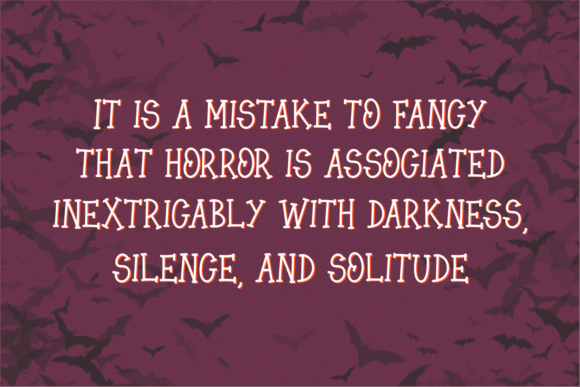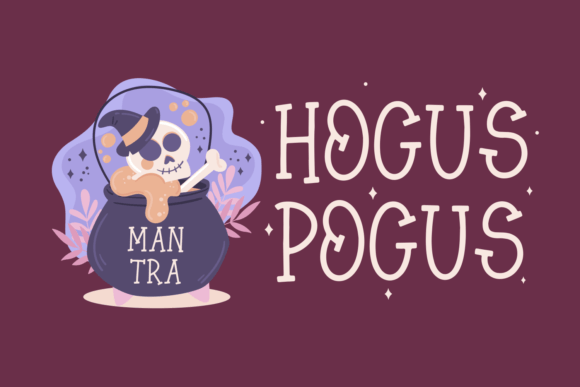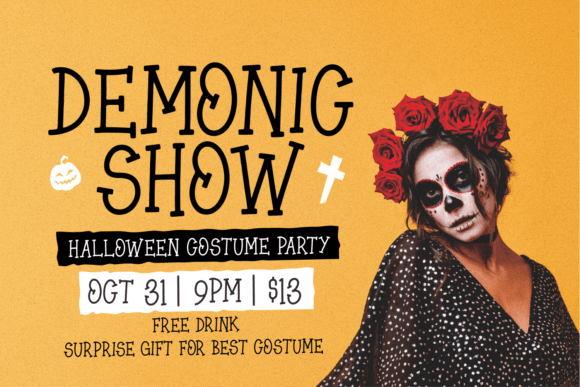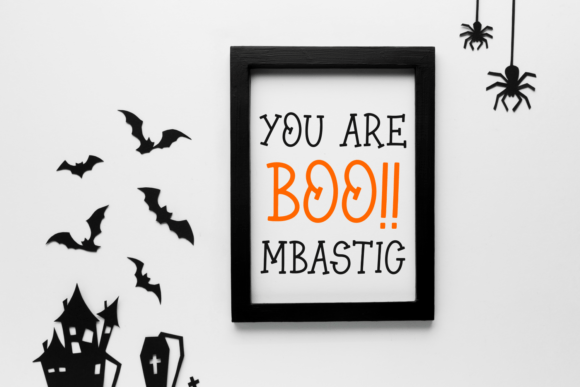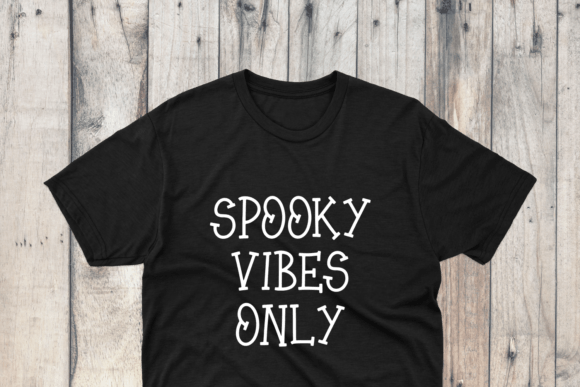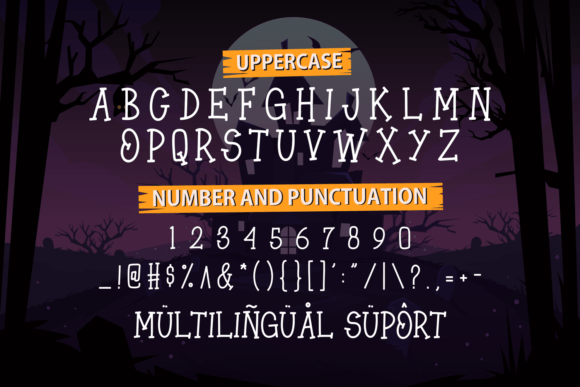
Hell O Ween Font: The Ultimate Spooky Display Font for Halloween and Horror-Themed Projects
Are you a designer or crafter looking for a font that will add a spooky touch to your Halloween or horror-themed projects? Look no further than the Hell O Ween font! This fun and scary display font is perfect for creating eye-catching designs that will leave a lasting impression on your audience. In this article, we’ll take a closer look at the Hell O Ween font, its features, and how you can use it to elevate your designs.
What is Hell O Ween Font?
Hell O Ween is a display font designed to capture the spirit of Halloween and horror. Its scary vibe and unique lettering make it stand out from other fonts, making it perfect for creating attention-grabbing designs. Whether you’re working on a Halloween-themed project, a horror movie poster, or a spooky invitation, Hell O Ween is the perfect font to add a touch of eeriness and fun.
Features of Hell O Ween Font
The Hell O Ween font comes with a range of features that make it a versatile and fun font to work with. Some of its key features include:
- Unique Lettering: The Hell O Ween font features unique and quirky lettering that is sure to grab attention.
- Scary Vibe: The font’s scary vibe makes it perfect for Halloween and horror-themed projects.
- Display Font: Hell O Ween is a display font, making it perfect for headlines, titles, and other attention-grabbing elements.
How to Use Hell O Ween Font
Using the Hell O Ween font is easy! Here are a few ways you can incorporate it into your designs:
- Halloween-Themed Projects: Use Hell O Ween to create spooky invitations, party decorations, and other Halloween-themed projects.
- Horror Movie Posters: Add a touch of horror to your movie posters with the Hell O Ween font.
- Spooky Signage: Use Hell O Ween to create eye-catching signage for haunted houses, Halloween events, and other spooky attractions.
- Crafting Projects: Incorporate Hell O Ween into your crafting projects, such as making spooky cards, gift tags, and other DIY crafts.
Why Choose Hell O Ween Font?
So, why choose Hell O Ween font for your Halloween and horror-themed projects? Here are a few reasons:
- Unique and Eye-Catching: The Hell O Ween font is unique and eye-catching, making it perfect for grabbing attention.
- Versatile: The font is versatile and can be used for a range of projects, from Halloween-themed designs to horror movie posters.
- Fun and Spooky: The font’s fun and spooky vibe makes it perfect for adding a touch of eeriness and fun to your designs.
In conclusion, the Hell O Ween font is a fun and spooky display font that is perfect for Halloween and horror-themed projects. Its unique lettering, scary vibe, and versatility make it a great addition to any designer’s font collection. Whether you’re working on a Halloween-themed project, a horror movie poster, or a spooky invitation, Hell O Ween is the perfect font to add a touch of eeriness and fun. So, add it to your fonts collection today and start creating eye-catching designs that will leave a lasting impression on your audience!